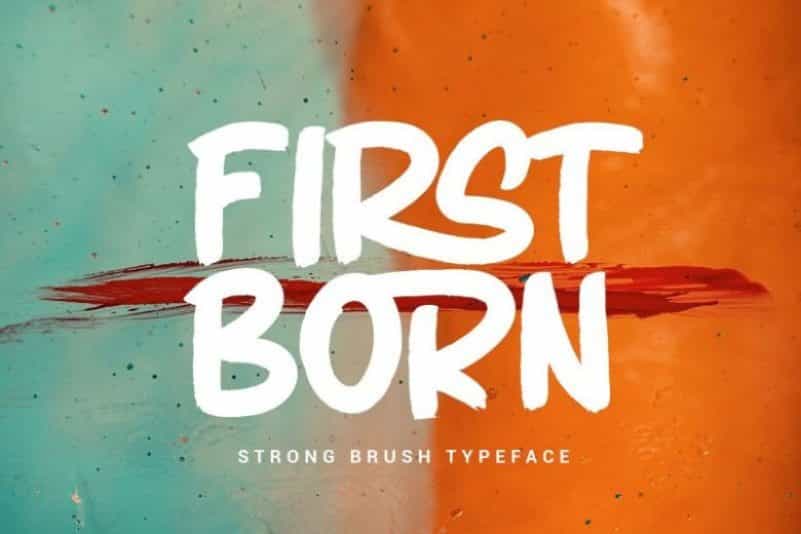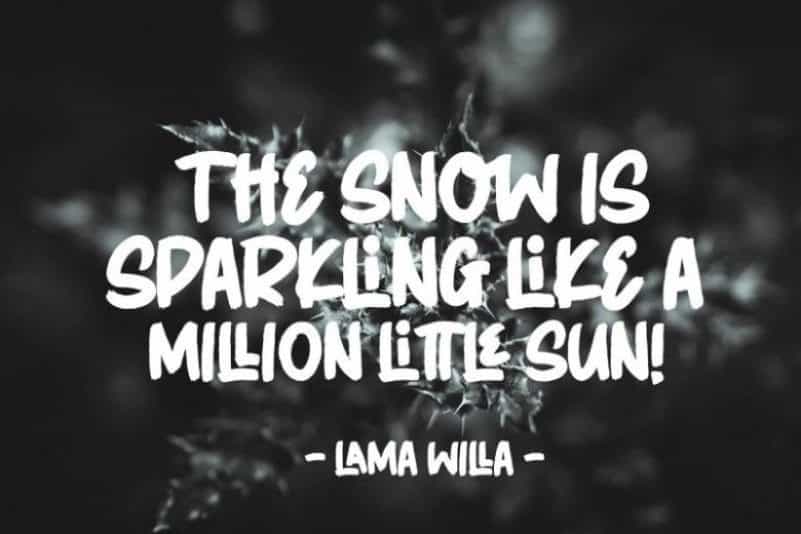
Firstborn a new brush font carefully on making sketch and scanning until we get the best result, designed for smooth integration and enable you to produce beautiful hand lettering in a short span of time. Suitable for; Logos, printed quotes, invitations, image overlays, greeting cards, product packaging, text headers, and any other use you can think of!